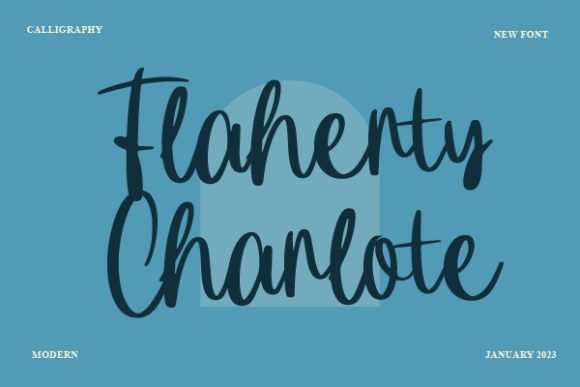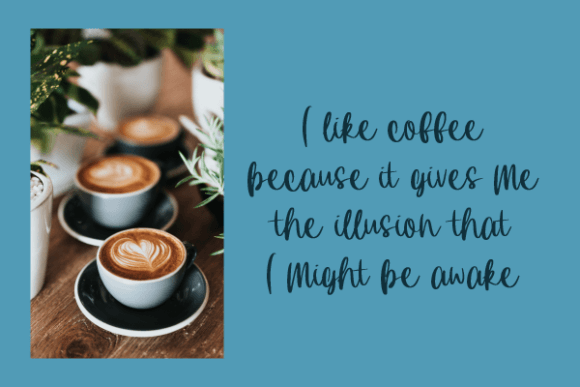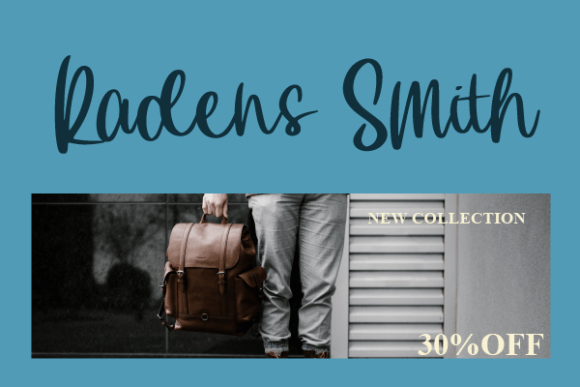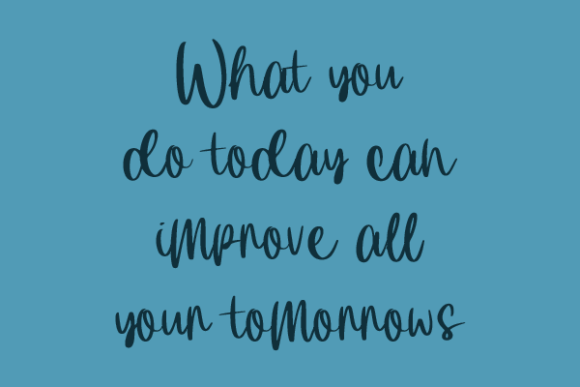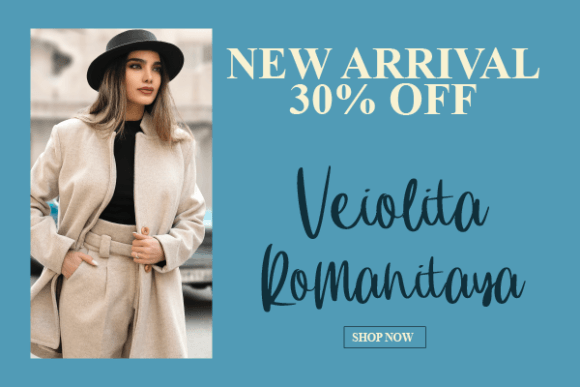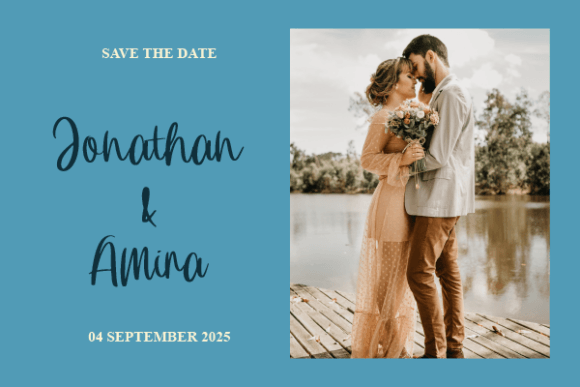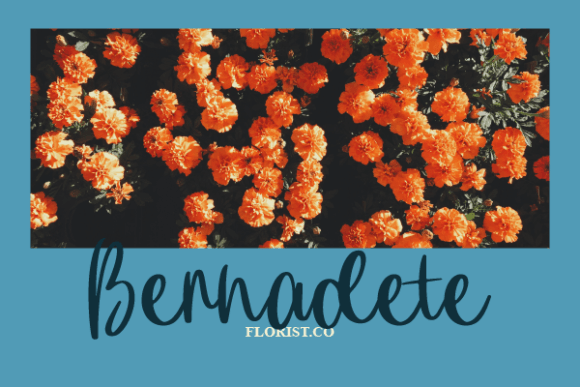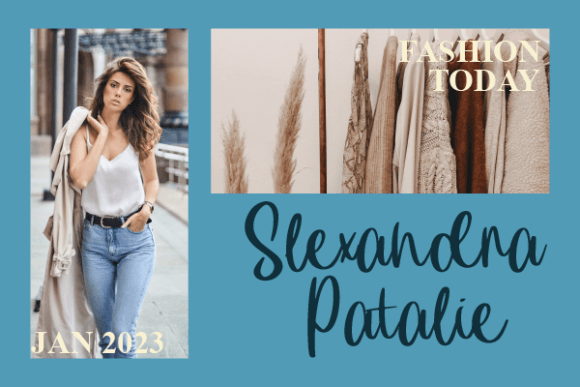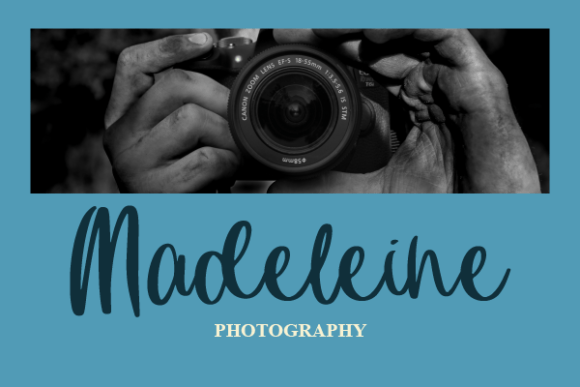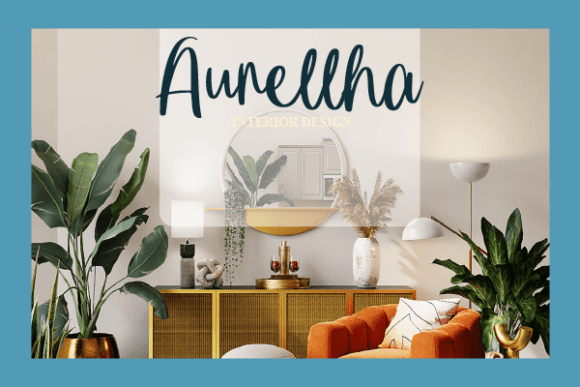
Flaherty Charlote
About Flaherty Charlote
Flaherty Charlote is a new modern script calligraphy typeface with its own unique flow and elegant personality. Is suitable for all your design project needs such as logo design, branding, covers, posters, and more.